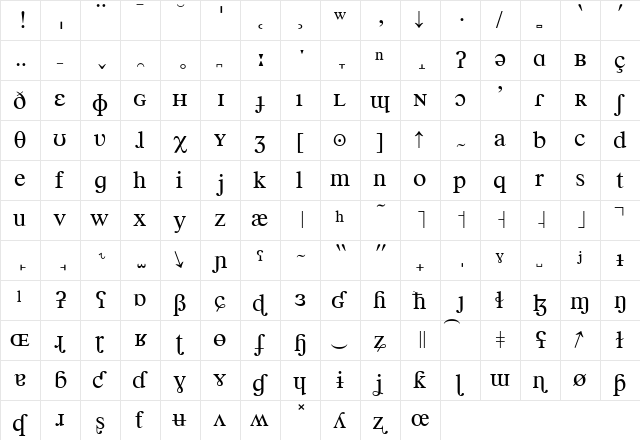
Times PhoneticIPA Regular
Design Context for Times PhoneticIPA Typeface
Times PhoneticIPA is a composed and adaptable typeface that performs quietly and consistently across a wide range of design contexts.